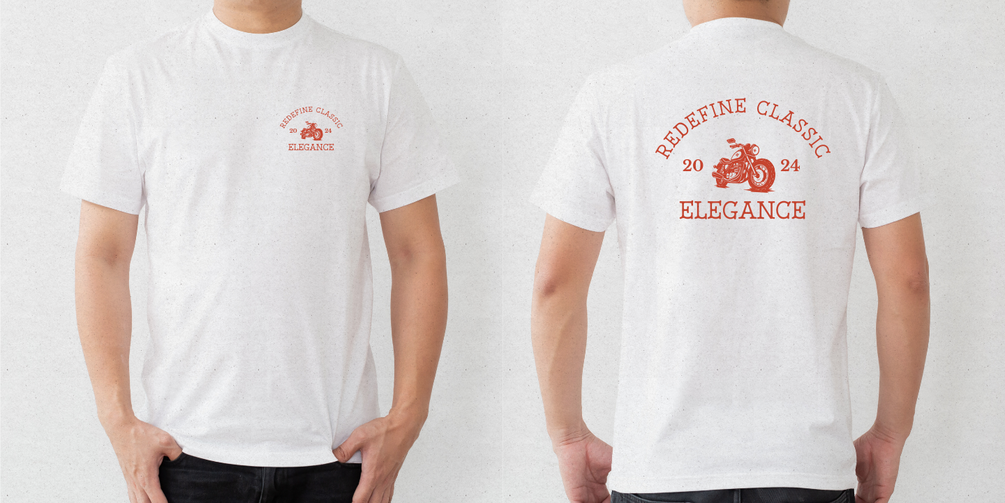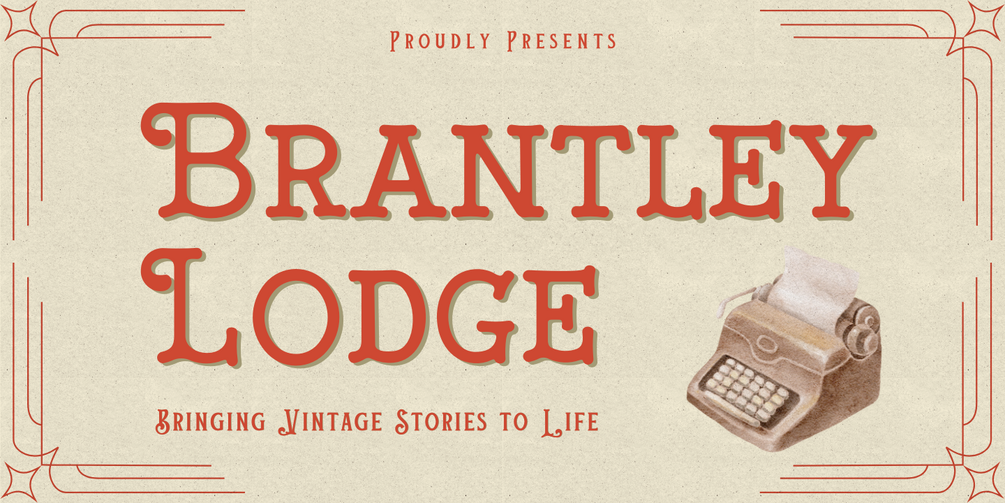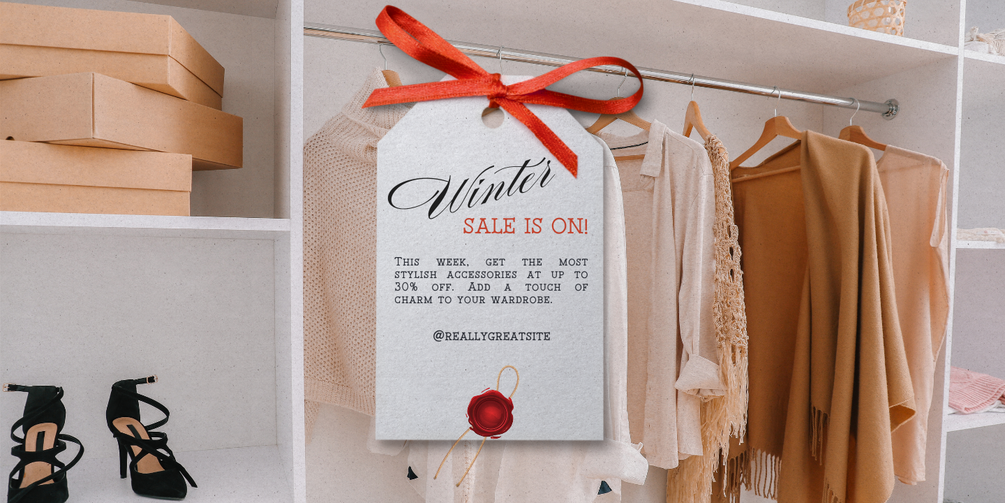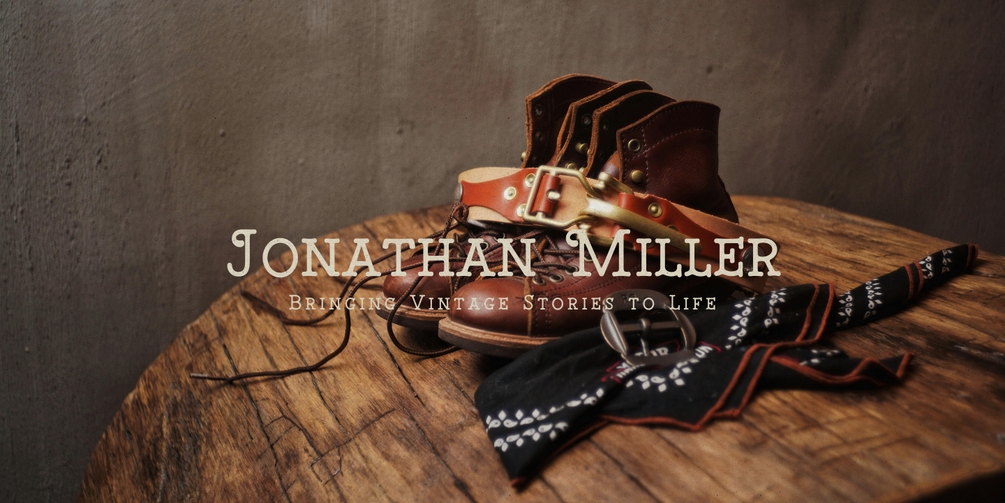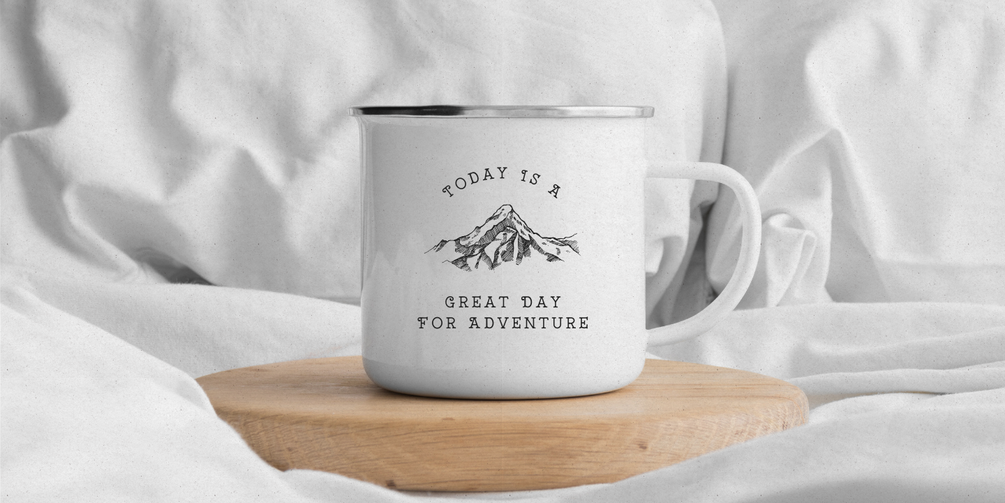
Brantley Lodge
Brantley Lodge – Elegant Vintage Typeface
Brantley Lodge is the perfect fusion of classic vintage charm and modern sophistication. With its graceful letterforms and meticulously designed details, this font offers a luxurious, professional look that will elevate any design project.
Whether you're working on logos, branding, invitations, product packaging, wedding stationery, or editorial designs, Brantley Lodge brings timeless elegance to your creations. Its unique blend of vintage influences and contemporary style makes it a versatile choice for projects ranging from refined luxury to minimalist designs.
Why Choose Brantley Lodge?
• Classic Vintage Charm – Embodies timeless sophistication with a modern touch.
• Refined and Stylish Letterforms – Ideal for creating luxurious, professional designs.
• Perfect for Various Projects – Logos, branding, invitations, packaging, wedding designs, and more.
• Versatile Design – A blend of vintage and modern elements that works for a variety of design concepts.
• Elegant, Timeless Look – Perfect for adding sophistication and strong visual identity to your work.
✔ Elegant and clean design for both professional and personal projects
Let Brantley Lodge enhance your projects with its blend of elegance, luxury, and timeless appeal.